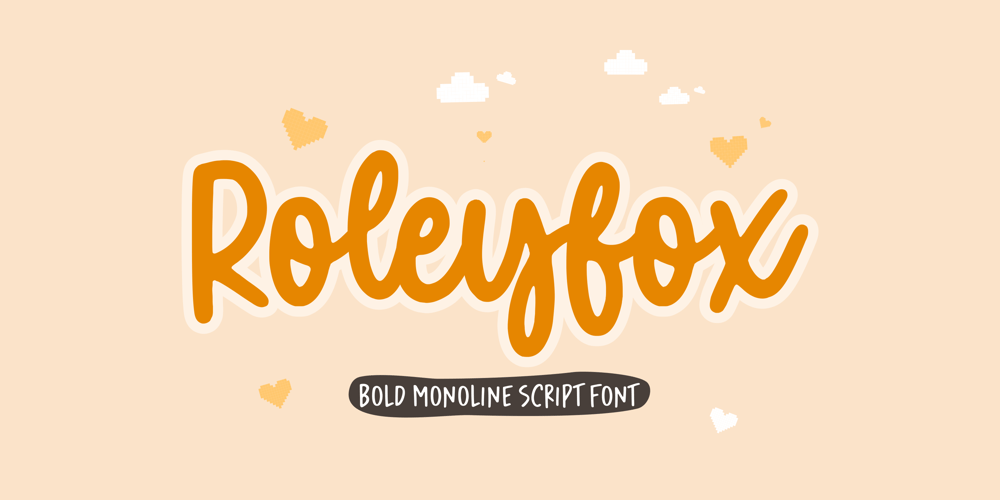
Roleyfox Font Family was designed by Restu Angga and published by Balpirick. Roleyfox contains 1 styles and family package options. Roleyfox is a Bold Monoline Script Font.Roleyfox is a cute and frail handwritten font, described by an elegant touch, perfect for your favorite projects. Fall in love with its incredibly distinct and timeless style and use it to create spectacular designs!Roleyfox also multilingual support.Enjoy the font, feel free to comment or feedback, send me PM or email.Thank you!